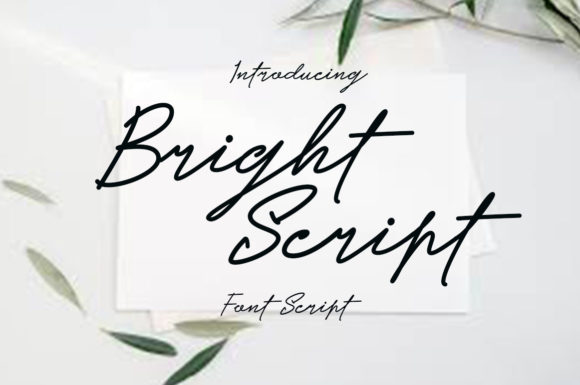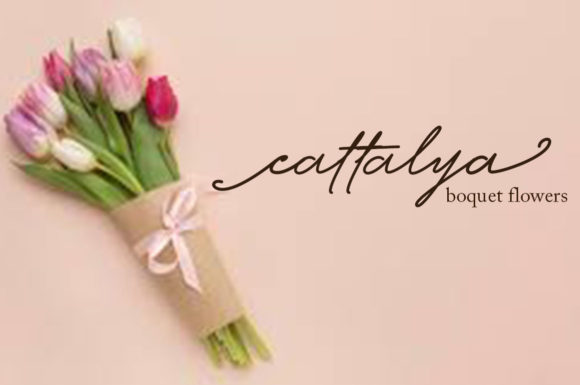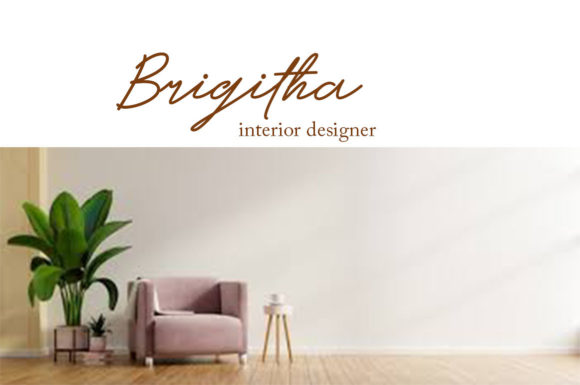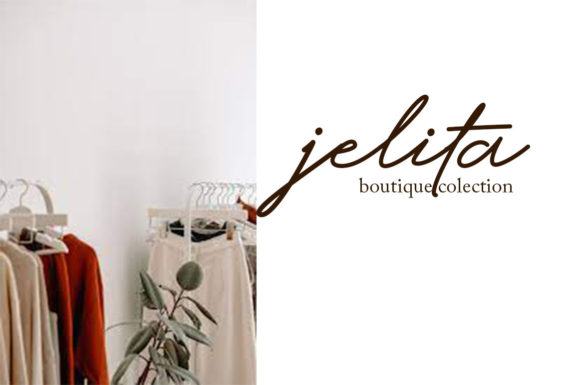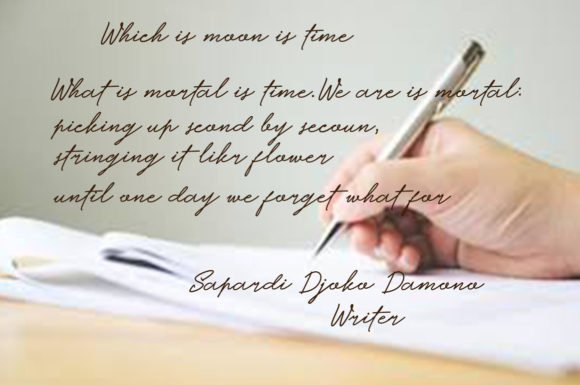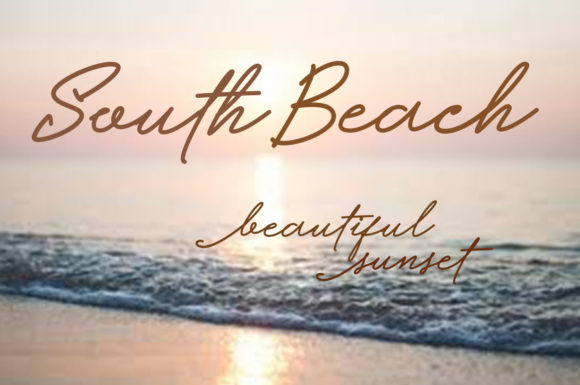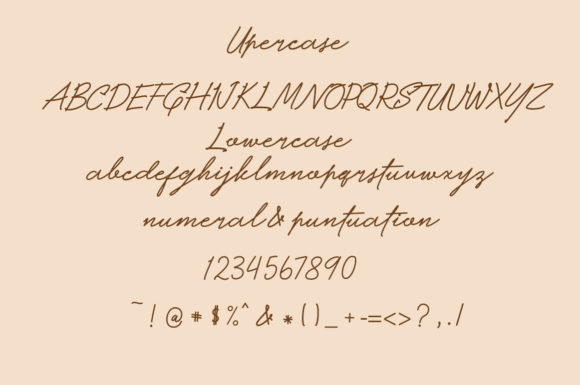
Bright Script Font
About Bright Script Font
Bright Script is an elegant script font with a contemporary atmosphere and impeccable form, inspired by timeless classic calligraphy. This font is PUA encoded which means you can access all of the glyphs and swashes with ease!